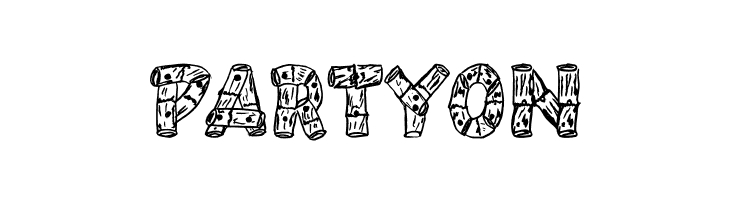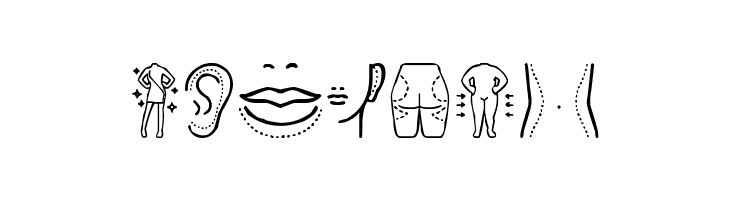
( Fonts by Reguler Studio )
A playful, hand-drawn font with a natural, wood-like texture.
A decorative icon font themed around plastic surgery and cosmetic procedures.
( Fonts by Billy Argel Fonts ® )
A bold, decorative font with intricate patterns and a modern, artistic style.
A modern, Art Deco-inspired font with sleek, elongated characters.
A bold, modern sans-serif font with strong geometric shapes.
A bold, italic sans-serif font with a modern and dynamic style.
A bold, modern sans-serif font with clean lines and excellent legibility.